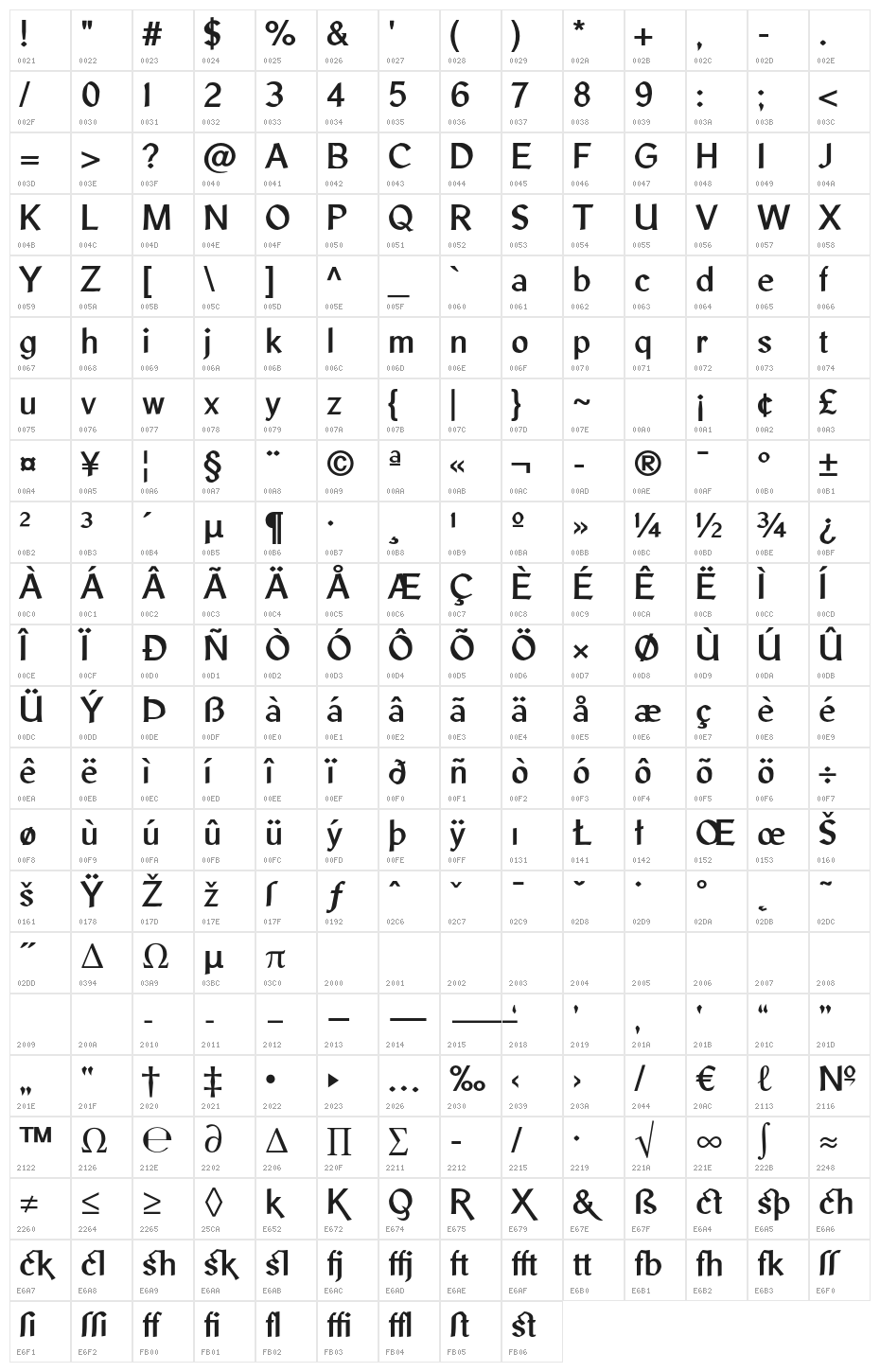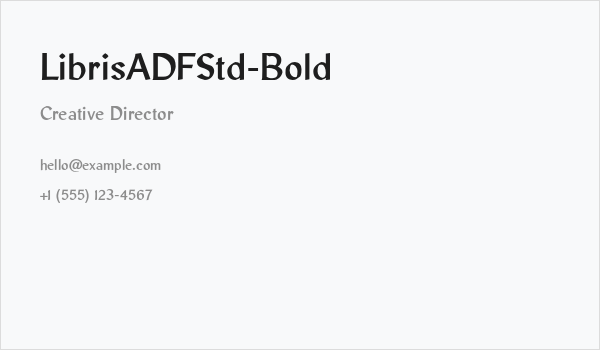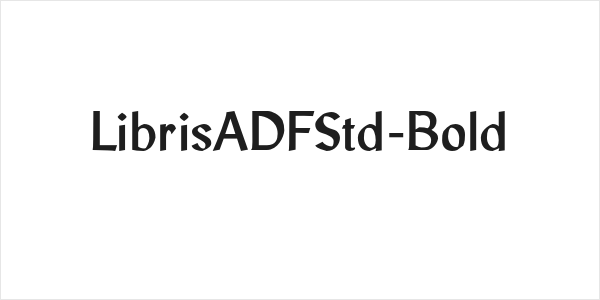
LibrisADFStd-Bold Font
LibrisADFStd-Bold Description
This font features a bold and assertive style with clean, sharp lines and a modern aesthetic. The uppercase letters are strong and commanding, while the lowercase letters maintain a consistent weight and structure. The numerals are clear and easy to read, making them suitable for various applications. The special characters are well-defined, adding versatility to the font's use. Overall, the font presents a professional and contemporary look, ideal for making a strong visual impact.
| Proposed Projects | Ideal for branding, advertising, headlines, and digital media where a strong, modern presence is required. |